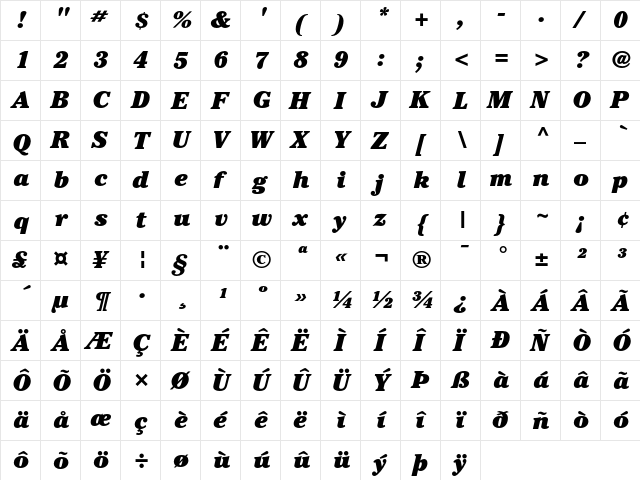
ITC Cheltenham Ultra Italic Font Preview
ITC Cheltenham Ultra Italic
Design Context for ITC Cheltenham Typeface
ITC Cheltenham takes a measured approach to typography — its balanced proportions and neutral character make it a reliable workhorse for both digital and print work. The dynamic lean of this cut emphasises speed and emphasis in any layout.
Pro Tip: Use ITC Cheltenham for emphasis, pull quotes, and subheadings where its slanted energy can add rhythm to the layout.